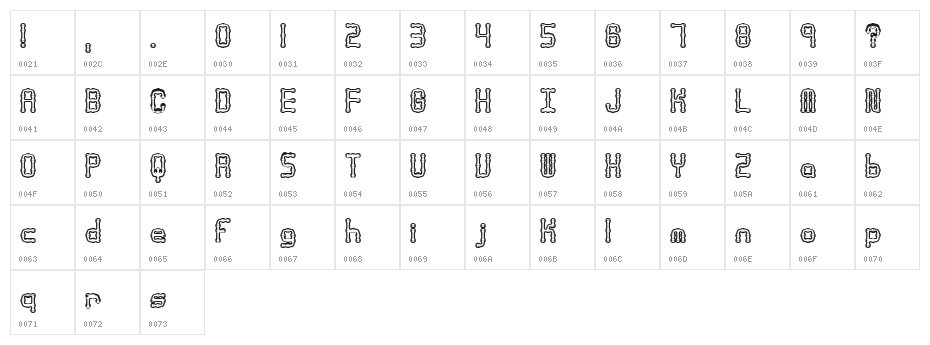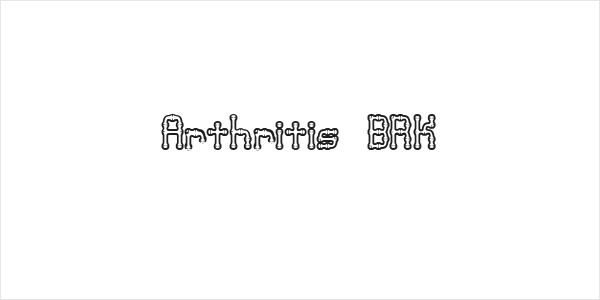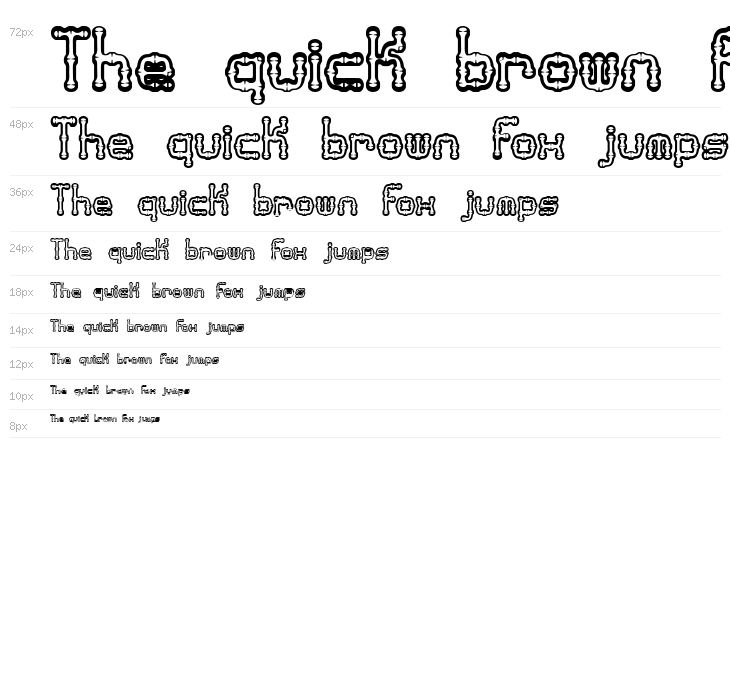
Arthritis BRK Font
Arthritis BRK Description
This font features a unique and playful design that mimics the appearance of bones or joints, creating a skeletal aesthetic. Each character is outlined with a bold, black border, enhancing the visual impact and making it stand out. The interior of the letters is filled with a white space, giving it a hollow look. The font maintains a consistent thickness throughout, contributing to its decorative and thematic style. It is particularly suitable for Halloween-themed projects or any design that requires a spooky or quirky touch. The uppercase and lowercase letters, as well as numbers and special characters, are all crafted with the same bone-like structure, ensuring uniformity across the typeface.
| Use Case | Headlines, Logos, Themed Events |
| Proposed Projects | Ideal for Halloween invitations, themed posters, children's books, or any design needing a spooky, quirky flair. |